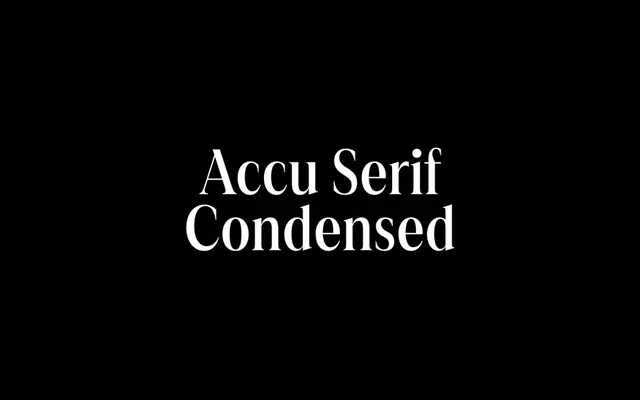
af Accu Serif Condensed
a.Foundry · 2024
A condensed serif with a tall x-height and sans-serif-influenced rhythm, released in 2024 as a subfamily of the broader af Accu Serif family.
Spanning nine weights from Thin to Black with matching italics and a variable font option, the family is built for digital contexts where tight measures are needed without sacrificing legibility. Its tall x-height and glyph rhythm draw openly from sans-serif conventions while retaining traditional serif detailing. Broad language coverage across 215 supported Latin-based languages makes it a practical choice for multilingual publishing.
A condensed serif with a tall x-height and rhythm drawn from sans-serif aesthetics, placing it in a contemporary category that blends traditional serif heritage with modern proportions.